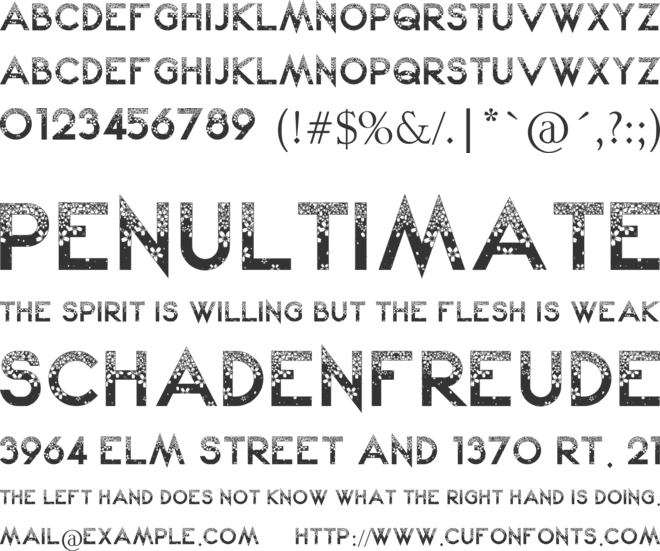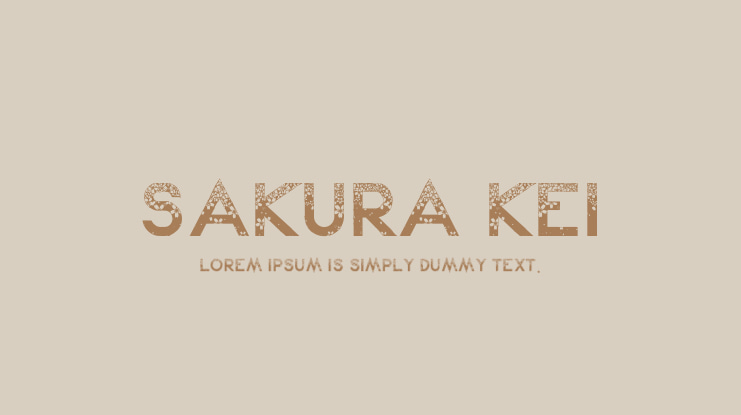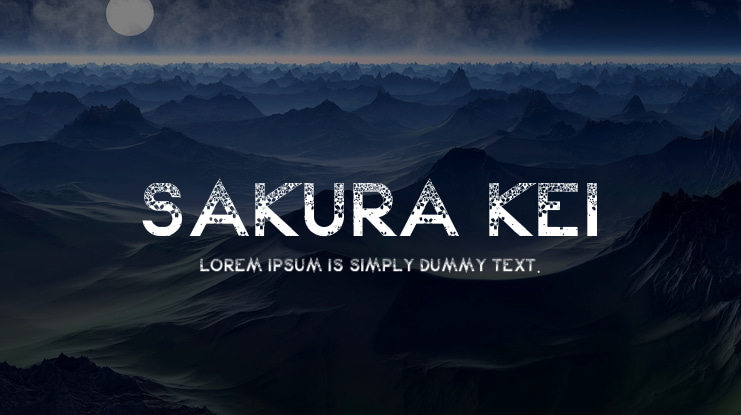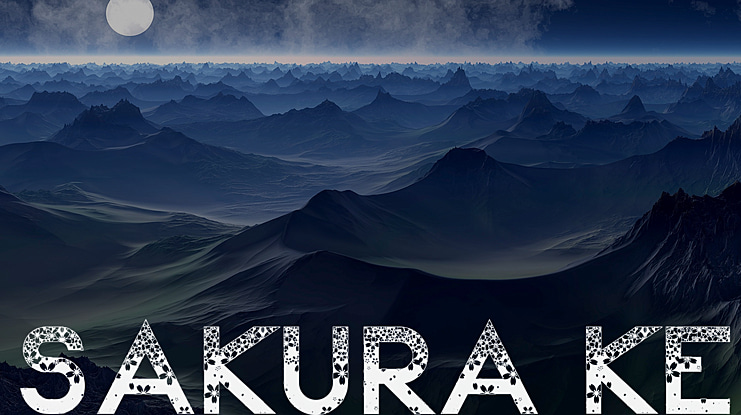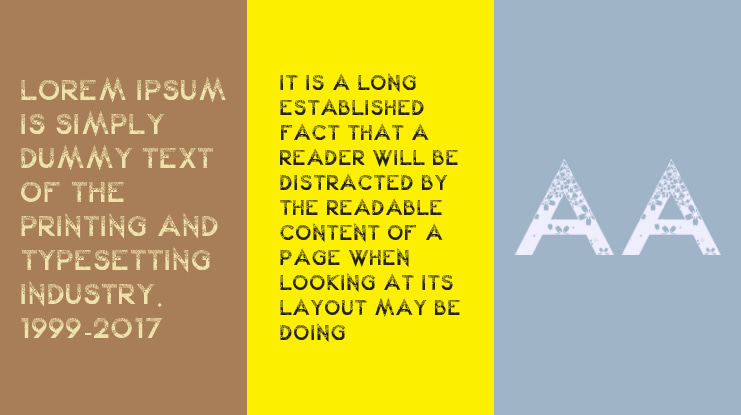
Sakura Kei display font is a new look font with the nuances of falling Japanese cherry blossoms, has awesome ligatures with swashes that are very easy to use, perfect for your fabulous projects themed on flowers, Japanese, love, valentine, and women's passions.
I created this Sakura Kei font in a unique way and it really makes it easy for you to get swash & ligatures in the form of fallen cherry blossoms. Hopefully, this method can help and speed up your time.
I used the ligature feature to make swashes of some of the cherry blossoms that fall after the beginning of the letter and before the end of the letter in the word. You can easily access them by using the double-asterisk (**) character that is typed after the first letter or the double exponential character (^^) that is typed after the last letter.
For example, for the letter a, type a** after the beginning of the letter or a^^ for the end of the letter to get swash (* and ^ on the top keys are parallel to the numbers on your keyboard).